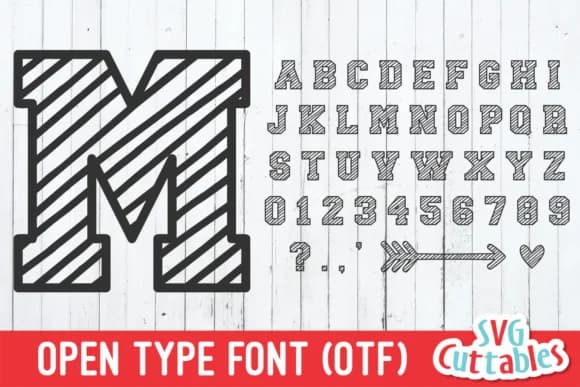
The letterforms in JP Sport Stitch draw inspiration from athletic wordmarks and vintage collegiate type, with blocky, confident geometry built on a sturdy slab serif structure. Designed by SVG Cuttables, this font captures the unmistakable visual energy of championship athletics and sports uniforms, delivering the kind of contemporary visual appeal that doesn't sacrifice retro authenticity.
The substantial weight and geometric precision that define JP Sport Stitch make it work brilliantly for college-themed event invitations, custom athletic merchandise labels, and vintage sports posters that command attention without hesitation. Vinyl cutter enthusiasts have embraced it for creating custom team decals and apparel graphics, while graphic designers employ it frequently for retro-inspired social media campaigns, DIY craft signage celebrating school pride and spirit, and nostalgic sports-themed packaging solutions. The bold stance of these letterforms means they hold up beautifully whether you're working at large scale or in compact layouts, whether your project lives in print or digital space.
This is the font for design work rooted in athletic culture and American nostalgia: championship season graphics, alumni reunion events, vintage-inspired sports merchandise, and any project where visual confidence needs to read as clearly as tradition. You'll find JP Sport Stitch on Creative Fabrica.
- Sturdy, Confident, Sport Font
JP Sport Stitch Font is a slab serif font that shines as a display or heading face. Pair it with a clean sans-serif or serif font for body text β the contrast creates a clear hierarchy while the two styles stay balanced and easy to read.